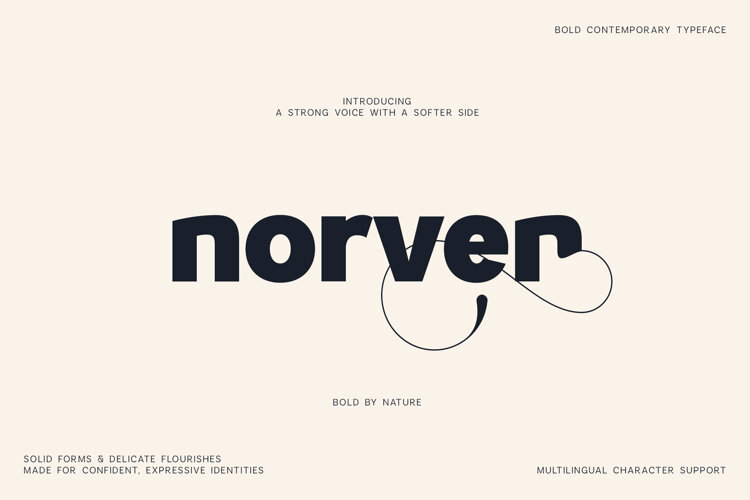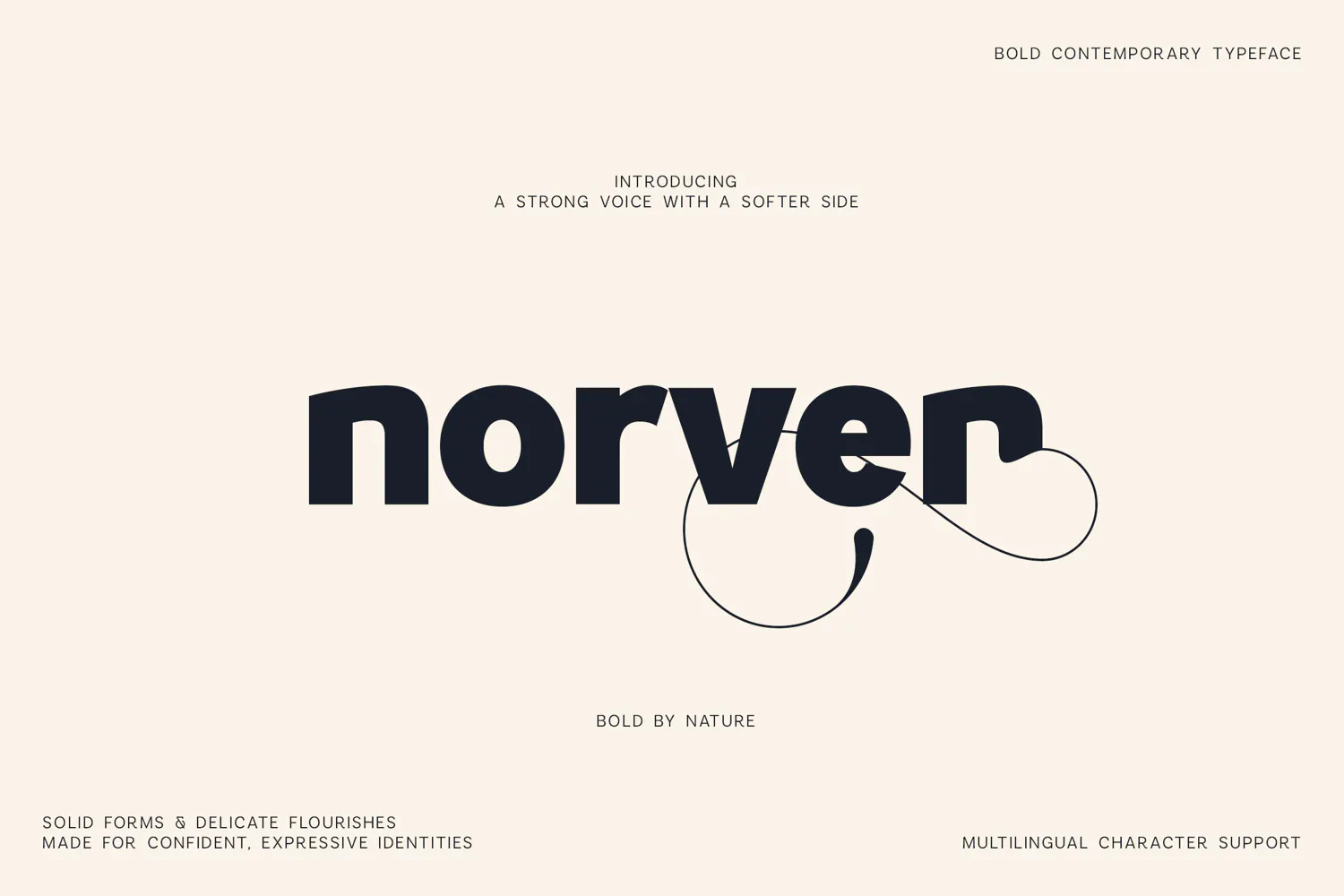
Norven Chunky Modern Font for Logos and Branding
Make your message impossible to overlook with Norven, a chunky modern font created for logos, branding and bold graphic design.
Norven features thick letterforms, confident proportions and rounded details that give the typeface a distinctive combination of strength and friendliness.
Its substantial weight makes short words, names and headlines instantly noticeable, making it particularly useful when typography needs to become the central visual element.
This chunky modern font works beautifully for:
- Logo design
- Brand identities
- Bold headlines
- Packaging
- Product labels
- Posters
- Merchandise
- Social media graphics
- Restaurant branding
- Advertising
- Event graphics
Norven pairs particularly well with thin sans serifs, elegant serifs and handwritten styles when you need strong typographic contrast.
Use this chunky modern font for projects that need an unmistakable, confident and contemporary identity.